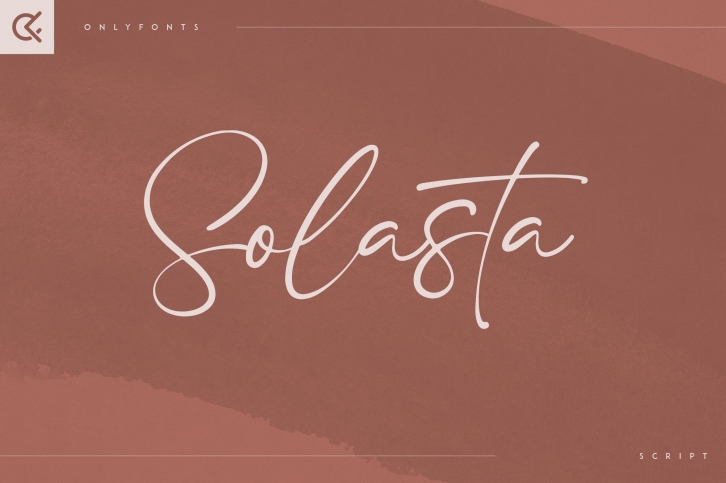
Solasta is a gorgeous font that was realeased on October 12, 2022. The font can be used in many style contexts and design environments. Perfect for invitations, magazines, websites, logos, and more! It was designed by VPcreativeshop and the file size is 16.73 MB. Thanks for checking out this font!